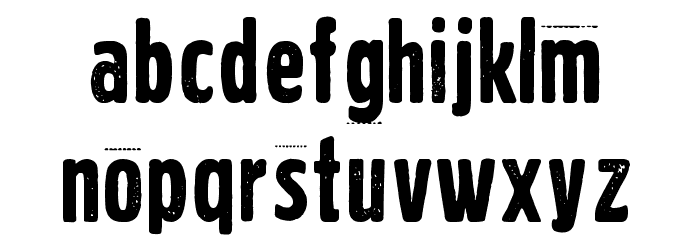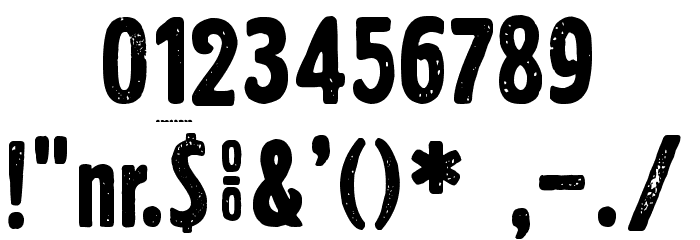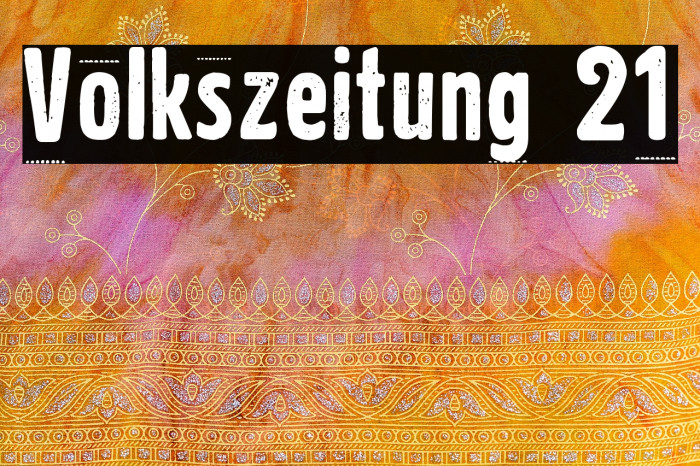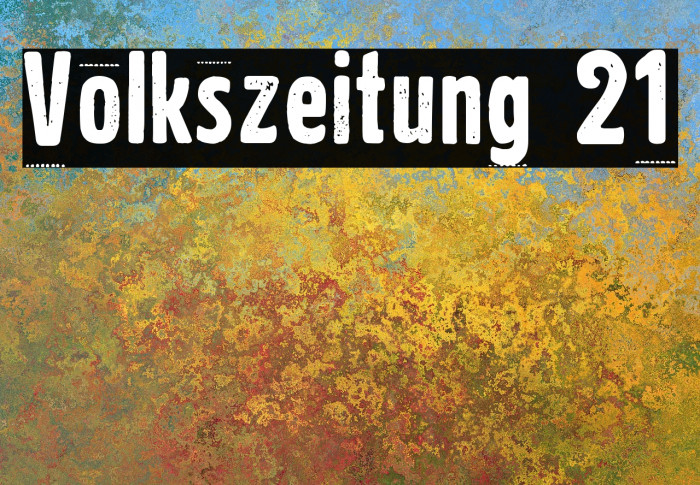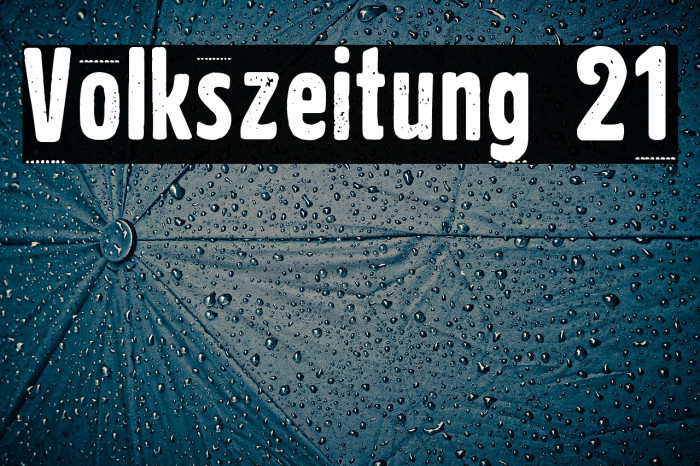
Volkszeitung 21 Font
This font features a bold, distressed style with a vintage, worn-out appearance. The uppercase and lowercase letters are consistent in their rugged texture, giving a sense of age and character. The numbers and special characters share this same distressed look, making the font cohesive across all elements. The strokes are thick, contributing to its bold presence, while the irregularities in the texture add a unique, handcrafted feel. This font is ideal for projects that require a rustic or retro aesthetic, such as posters, branding for artisanal products, or any design that aims to evoke nostalgia.
A bold, distressed font with a vintage, rustic appearance.
- Proposed Projects: Ideal for vintage posters, artisanal branding, retro-themed designs, and rustic signage.
- Overall Style: Vintage